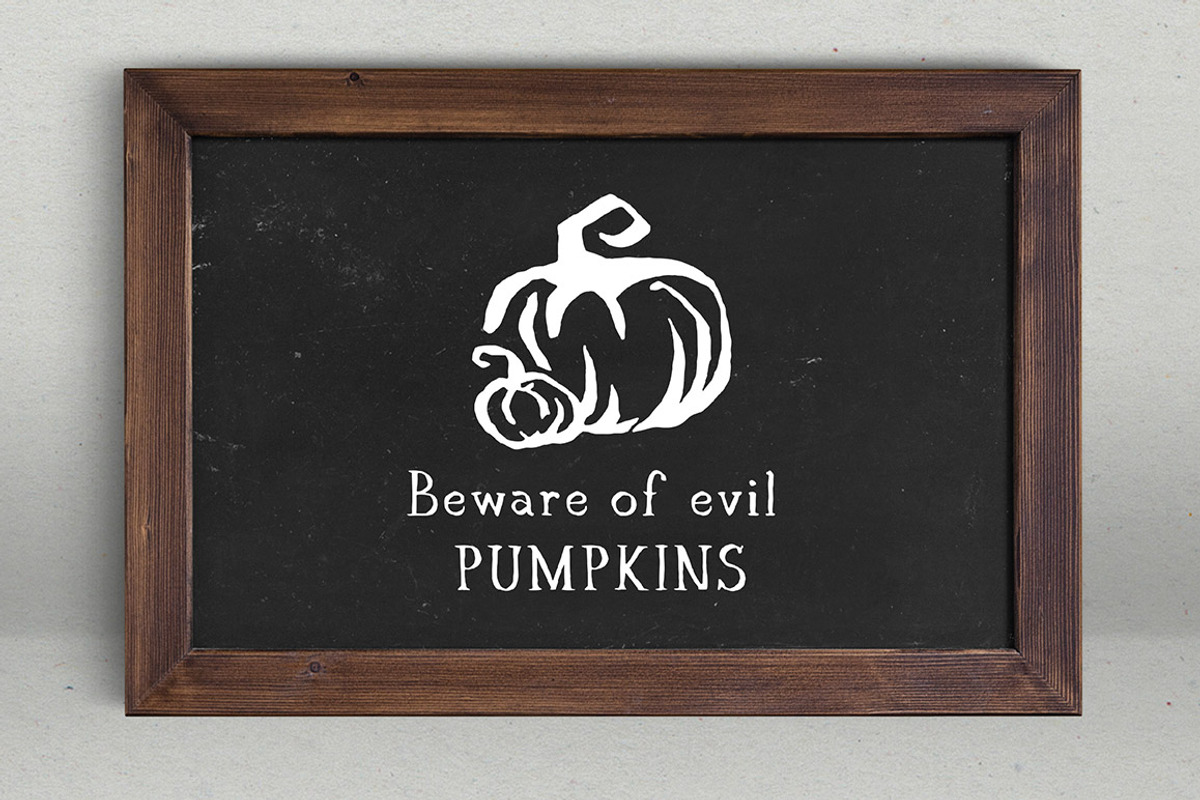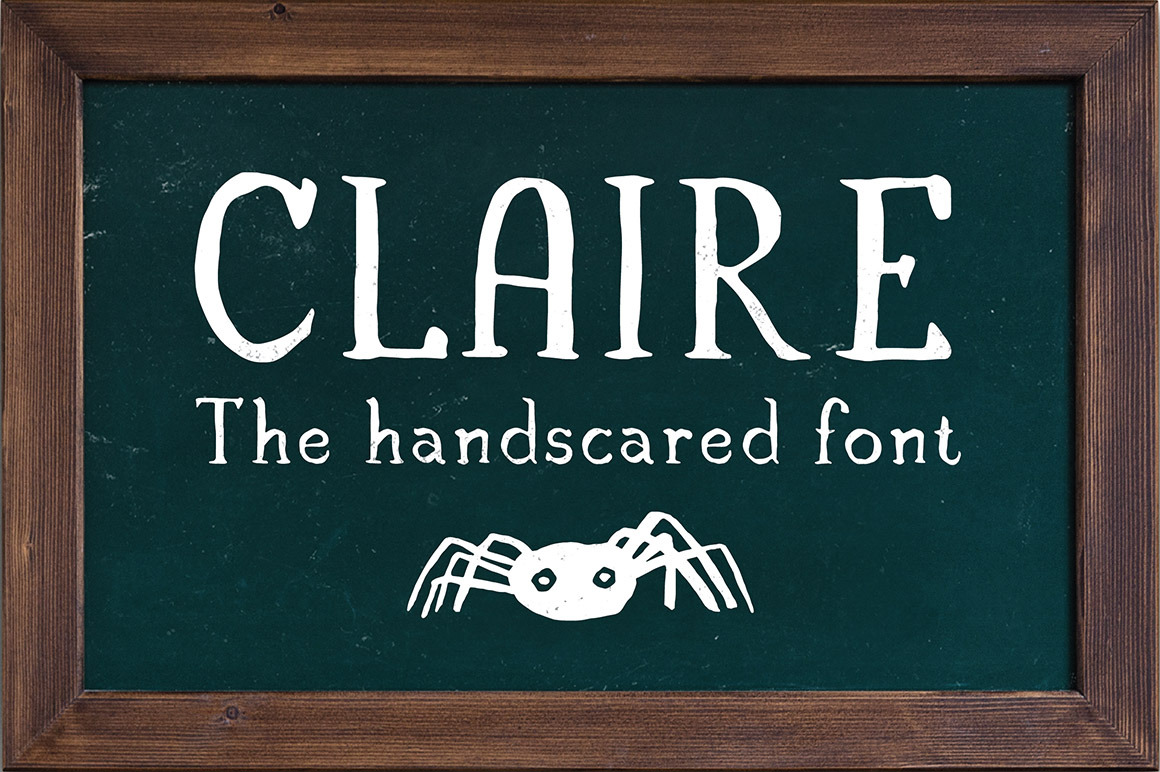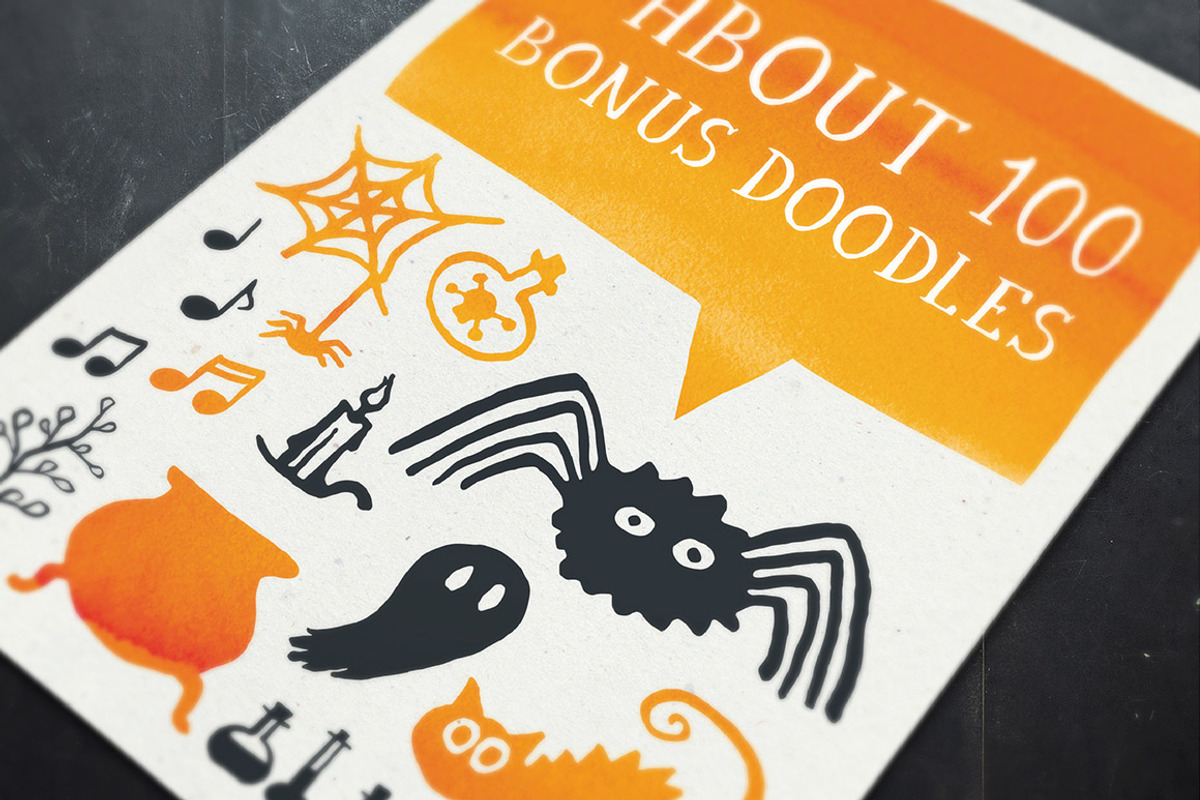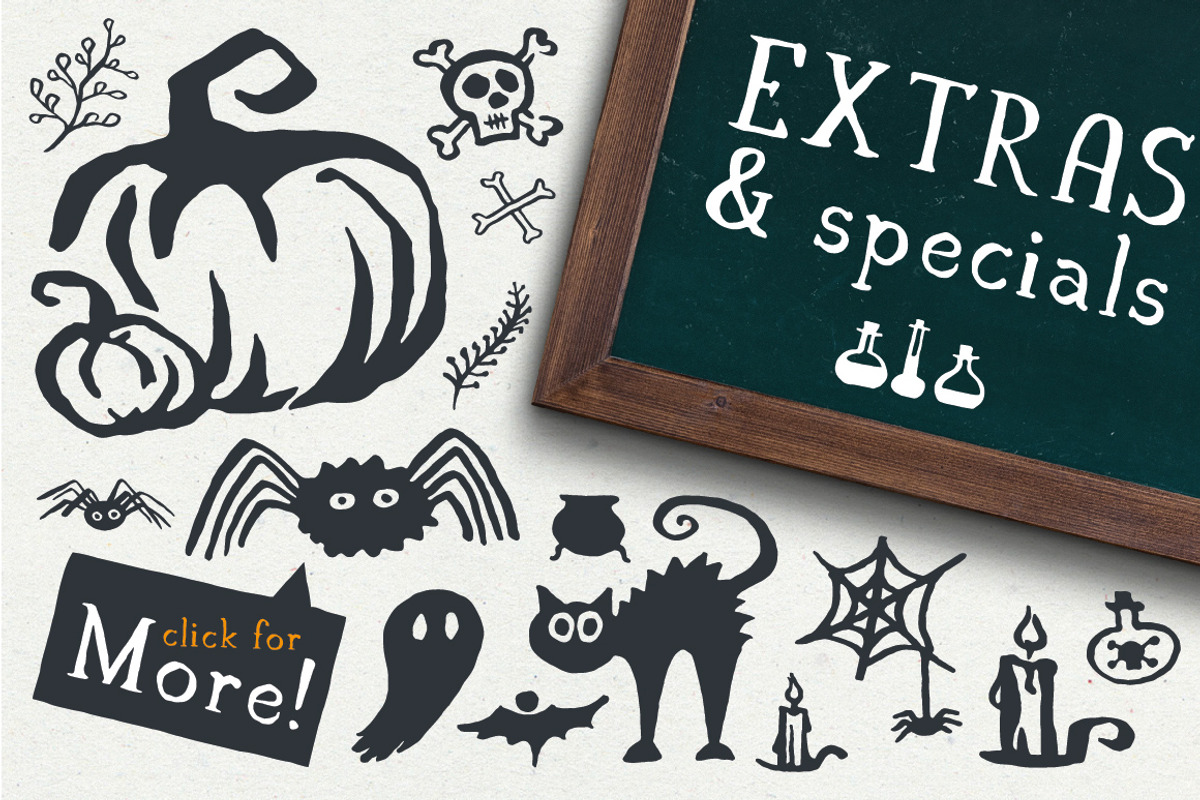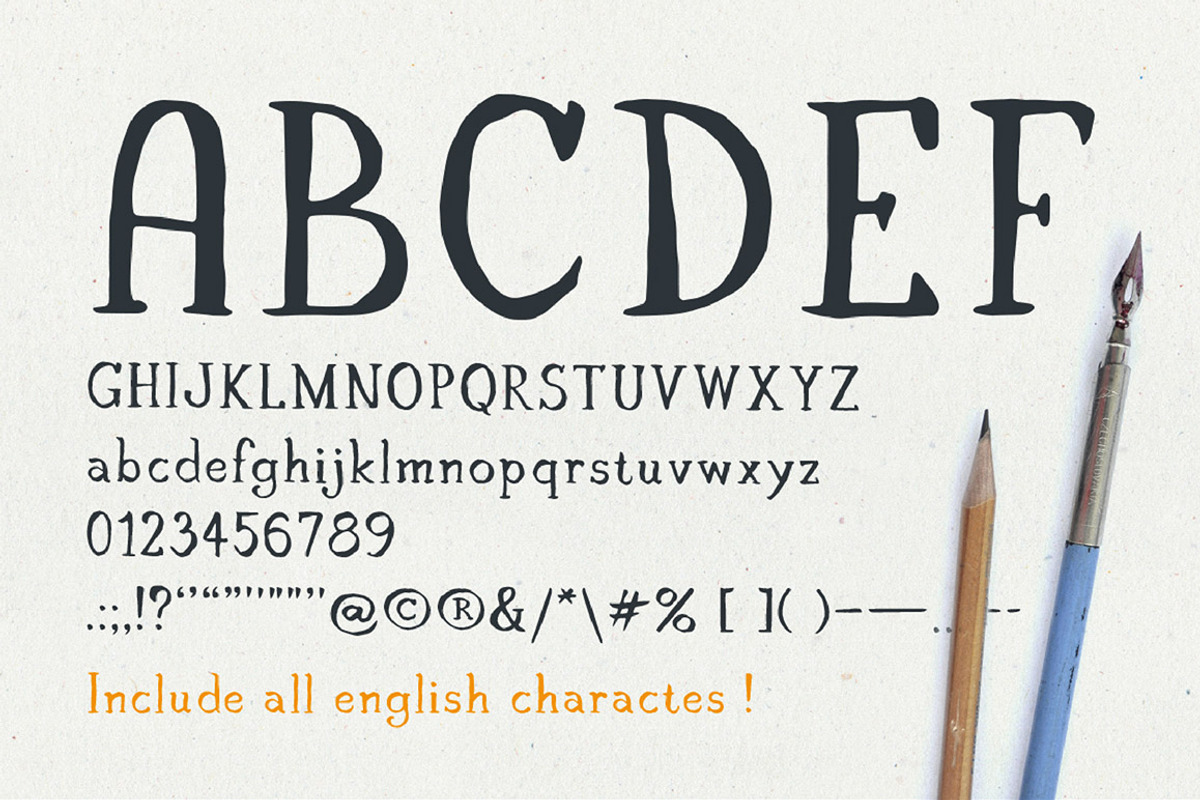
Claire - Serif font & illustrations
Claire is a handwritten font created by brush and ink which gives it sharp edges and a little bit scary look. It is delivered with over one houndred thematic illustrations. So, if you're looking for something sharp but pleasant you are on the right way!
Claire finds applications anywhere you need shaky handmade feel.
No foreign alphabets supported at this time (Include only english and czech charactes)